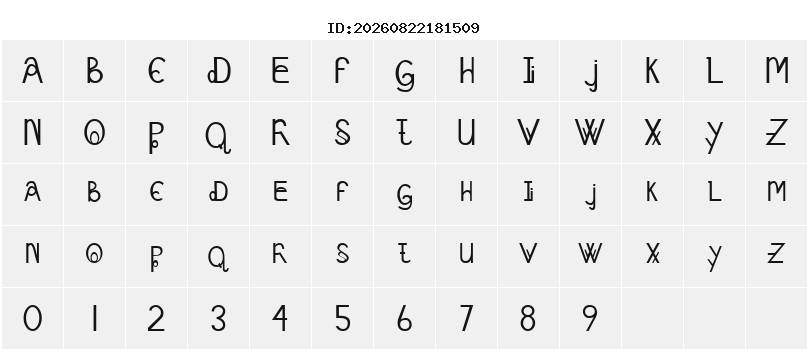
Schizcase Preview
• Font Name: Schizcase
• Full Font Name: Schizcase
• PostScript Name: Schizcase
About Schizcase.ttf
Schizcase.ttf is a modern, elegant sans-serif font designed for ultimate readability and visual harmony. Perfect for branding, headlines, web design, and print materials.